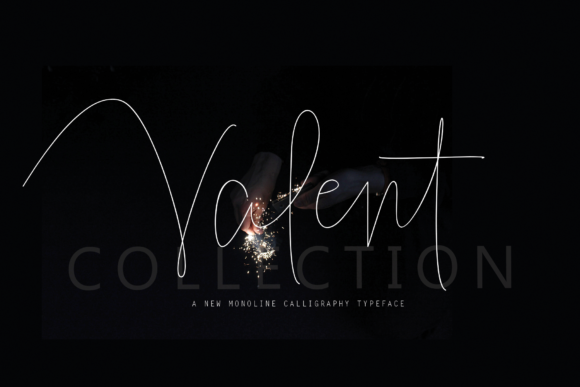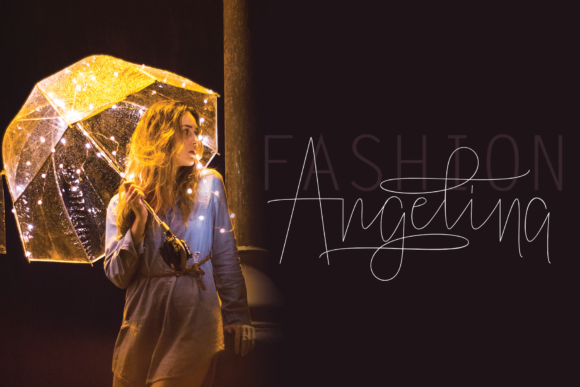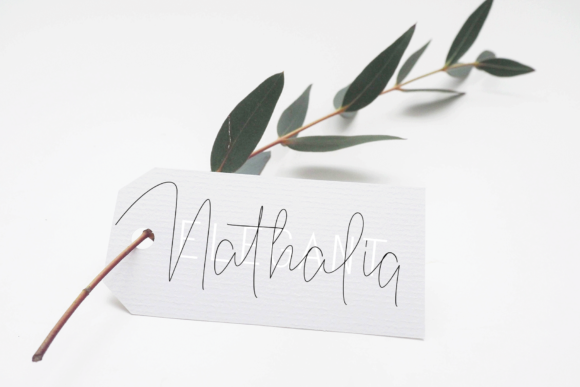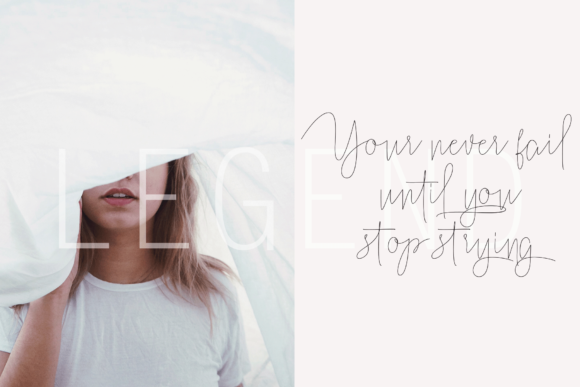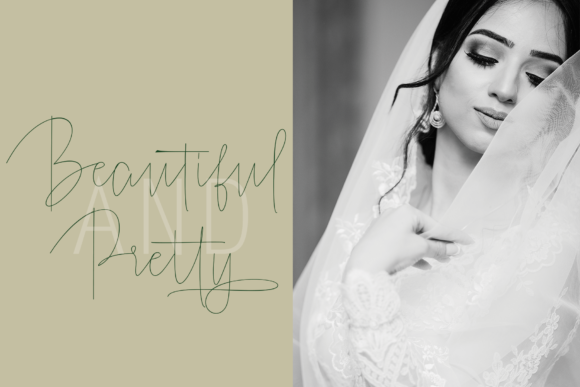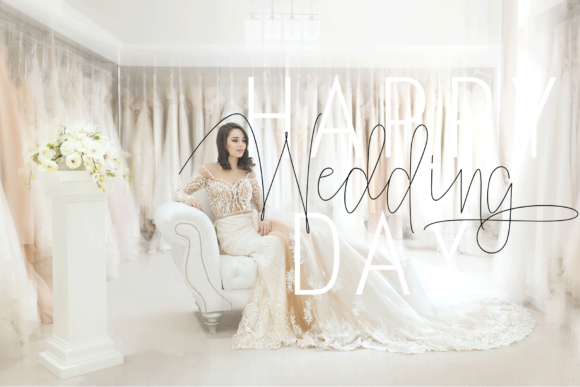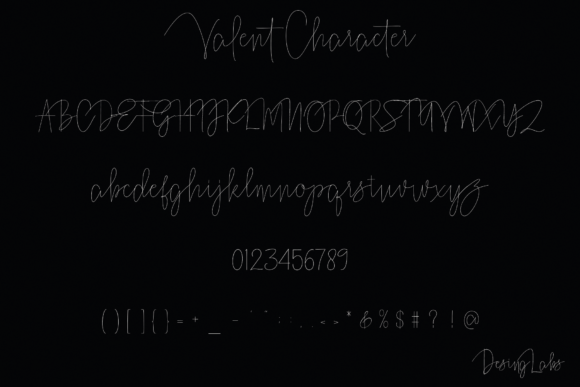
Valent Font
About Valent Font
Valent is a beautifully handwritten looking font, perfect for modern projects that need a casual yet elegant look. This is a great script that works in a large number of designs.